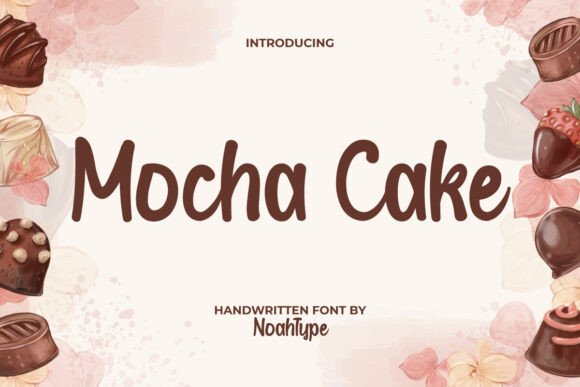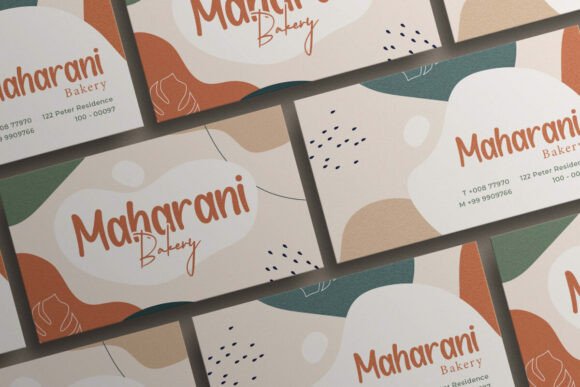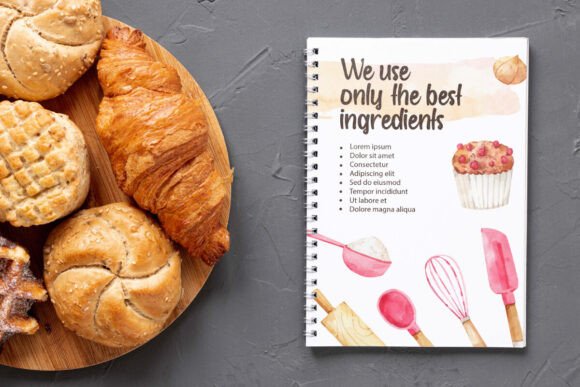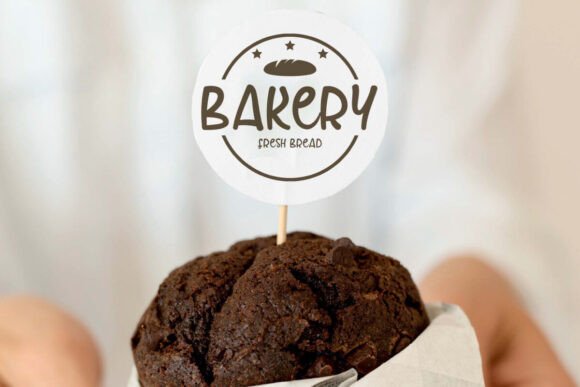
Mocha Cake Font: Cute Handwritten Typography for Bakery & Branding!
About the Mocha Cake Font
Explore the possibilities with Mocha Cake Font, a font that offers both beauty and functionality. Mocha Cake Font is a cute, delicious foodist handwritten font inspired by food trucks and family restaurants. The thickness of the lines in this font is perfect for you to make designs like diary writing using neat and sweet handwriting. It will be suitable for any industry, such as advertisement, bakery and pastry, café, event or festival, florist, printing, publishing, stationery, and more!
Mocha Cake’s playful, hand-drawn charm makes it ideal for headlines, short text blocks on packaging, and social media graphics. Its informal style works well for branding projects targeting a younger demographic or emphasizing a friendly, approachable feel. Avoid using it for body text or lengthy paragraphs; its casual nature isn’t suited to extended readability.
This font pairs well with clean sans-serifs like Open Sans for a balanced contrast, or a more geometric sans-serif such as Montserrat for a modern feel. A script font like Great Vibes could add a touch of elegance for sophisticated applications while maintaining the overall friendly vibe.
Mocha Cake projects a friendly, approachable personality, best suited for brands wanting to communicate warmth and approachability. Its inherent informality makes it less appropriate for projects requiring a formal or authoritative tone.
Mocha Cake Font Usage Examples
Mocha Cake Font Example